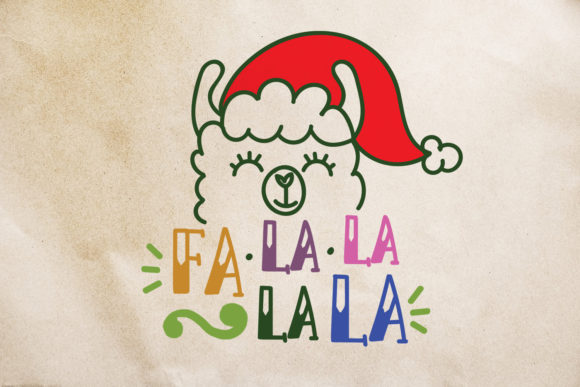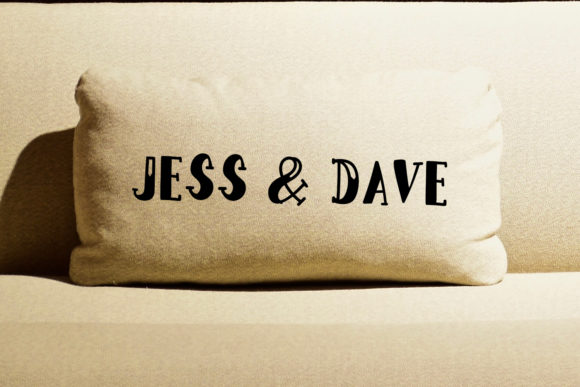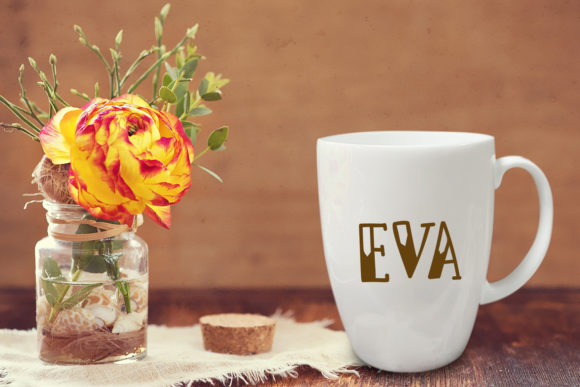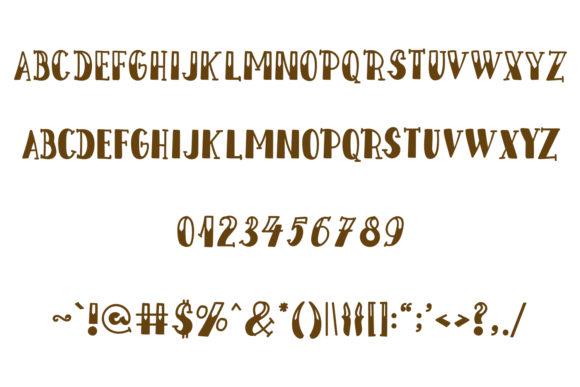
Fat Llama Font
About Fat Llama Font
The Fat Llama is a bold hand lettered font. It is a simple font that can be used in combination with elegant and thin fonts or by itself. It has an unique style which makes it perfect for making any design stand out.